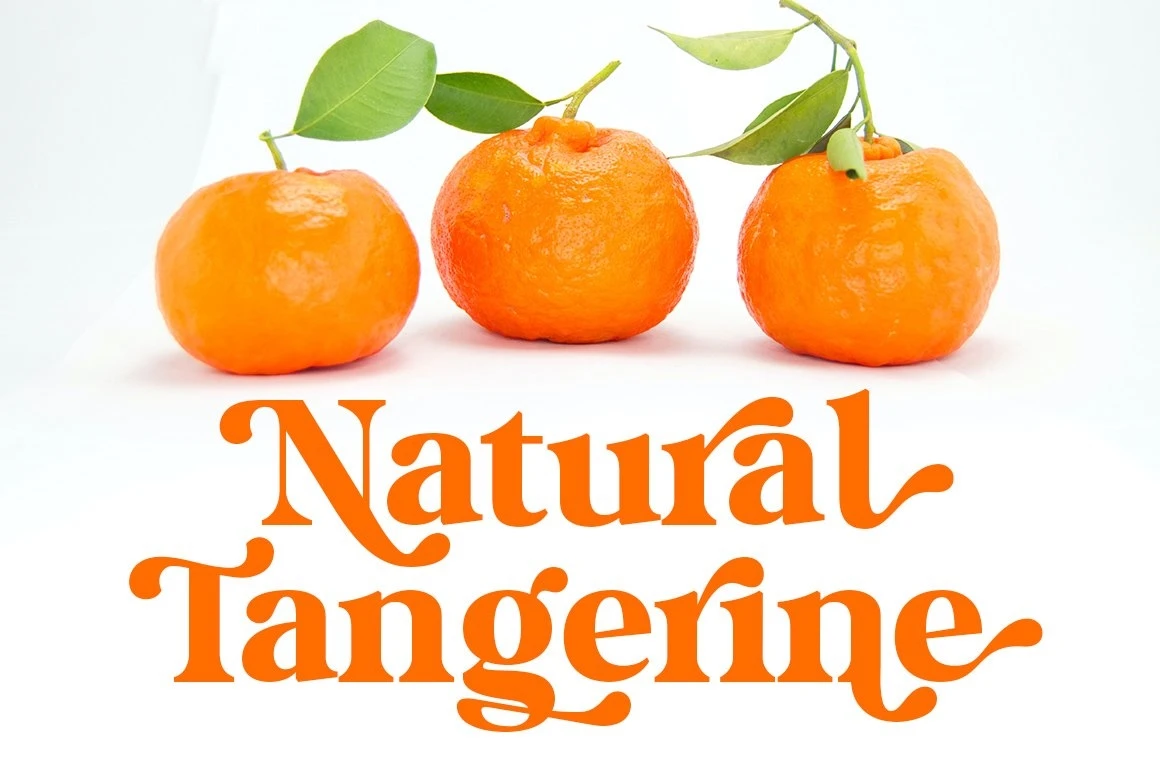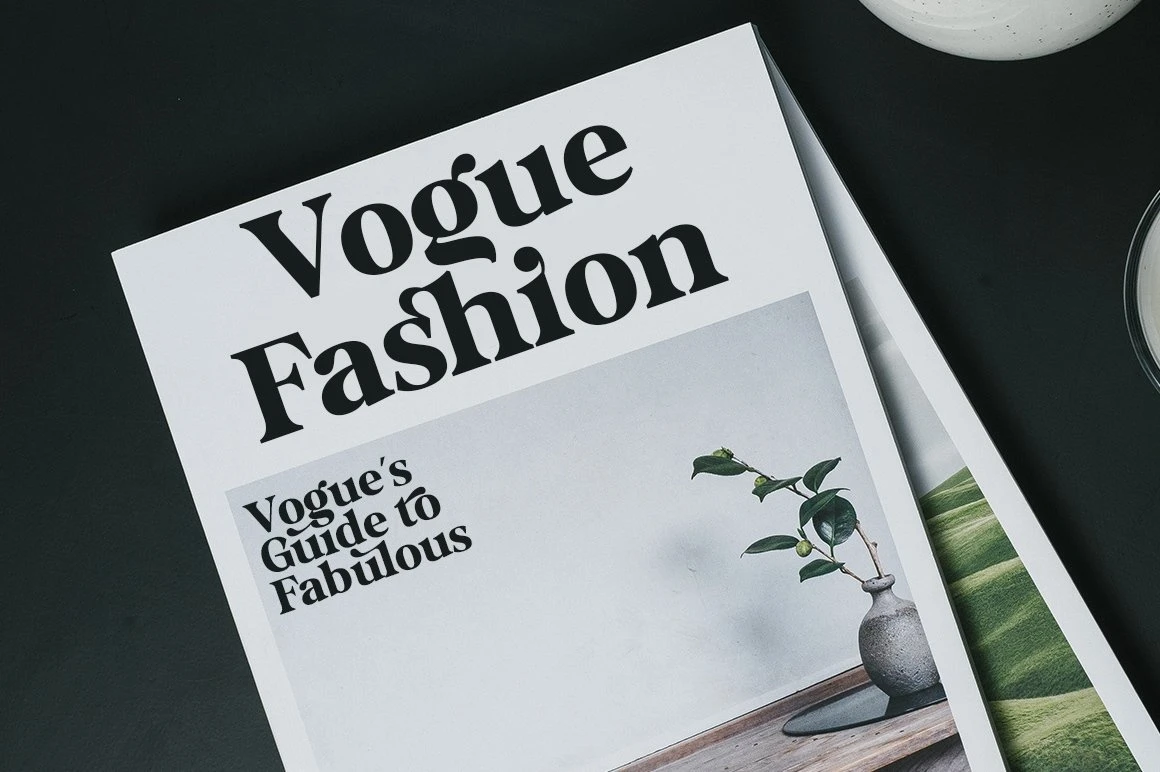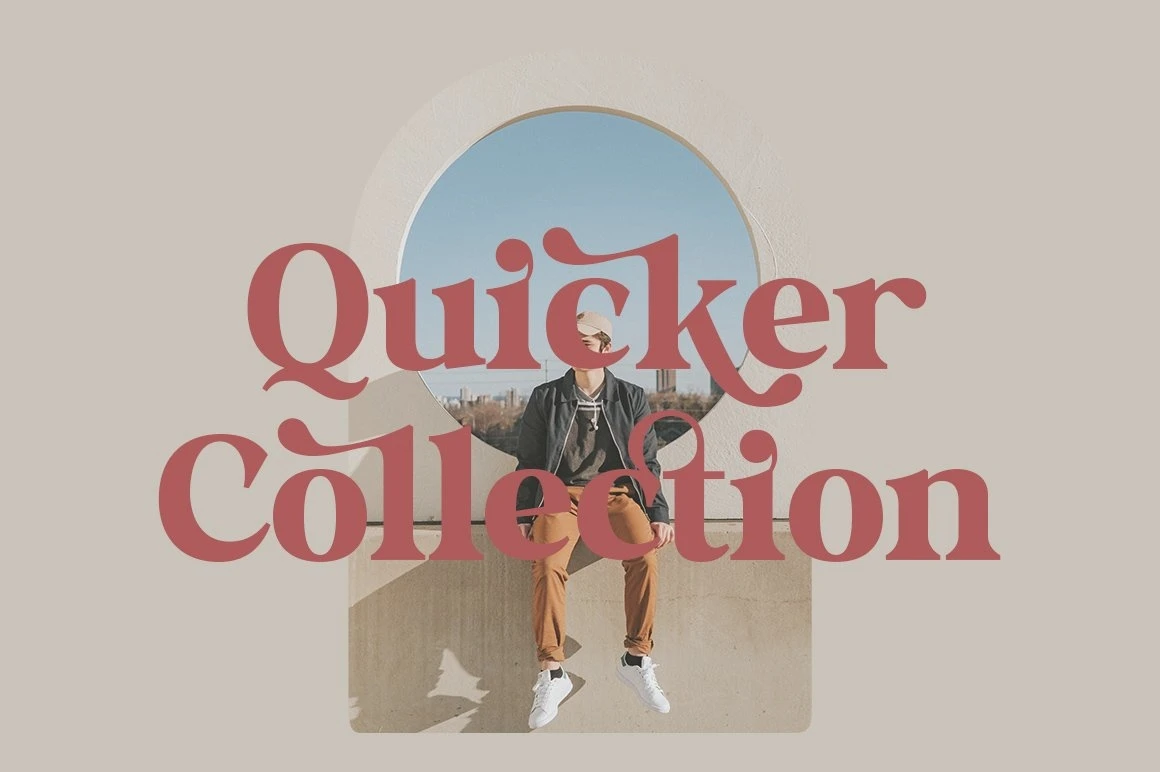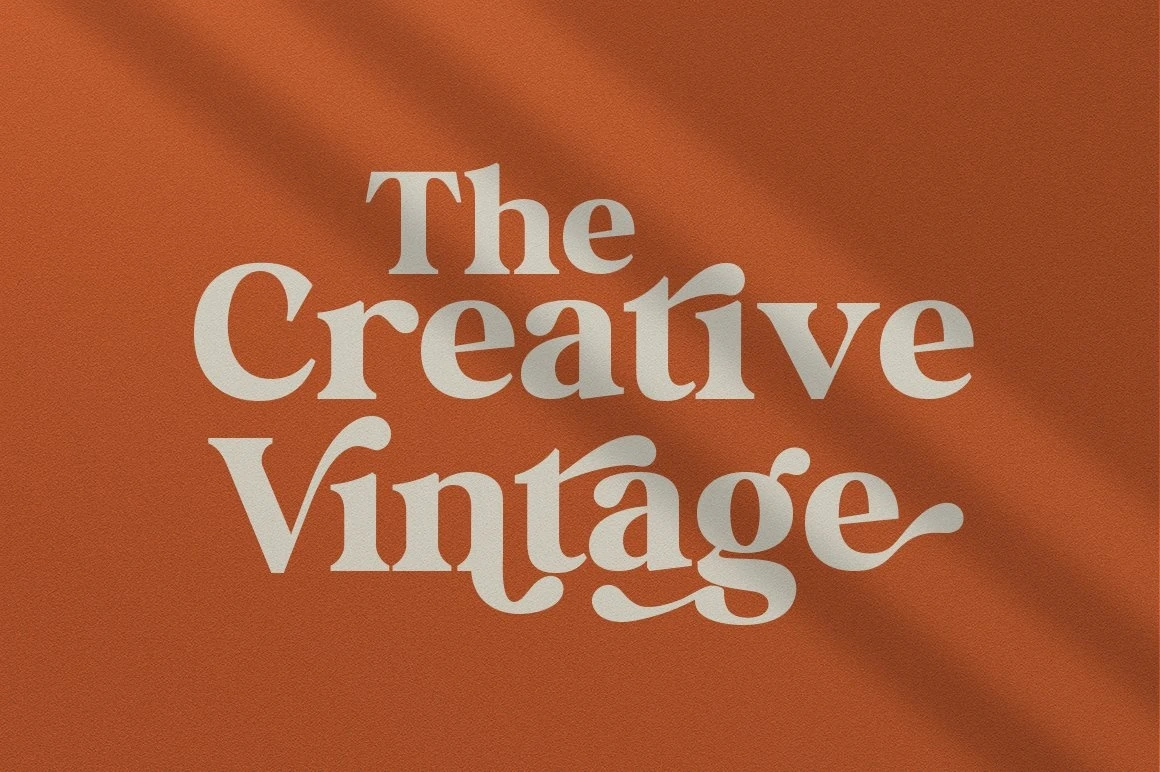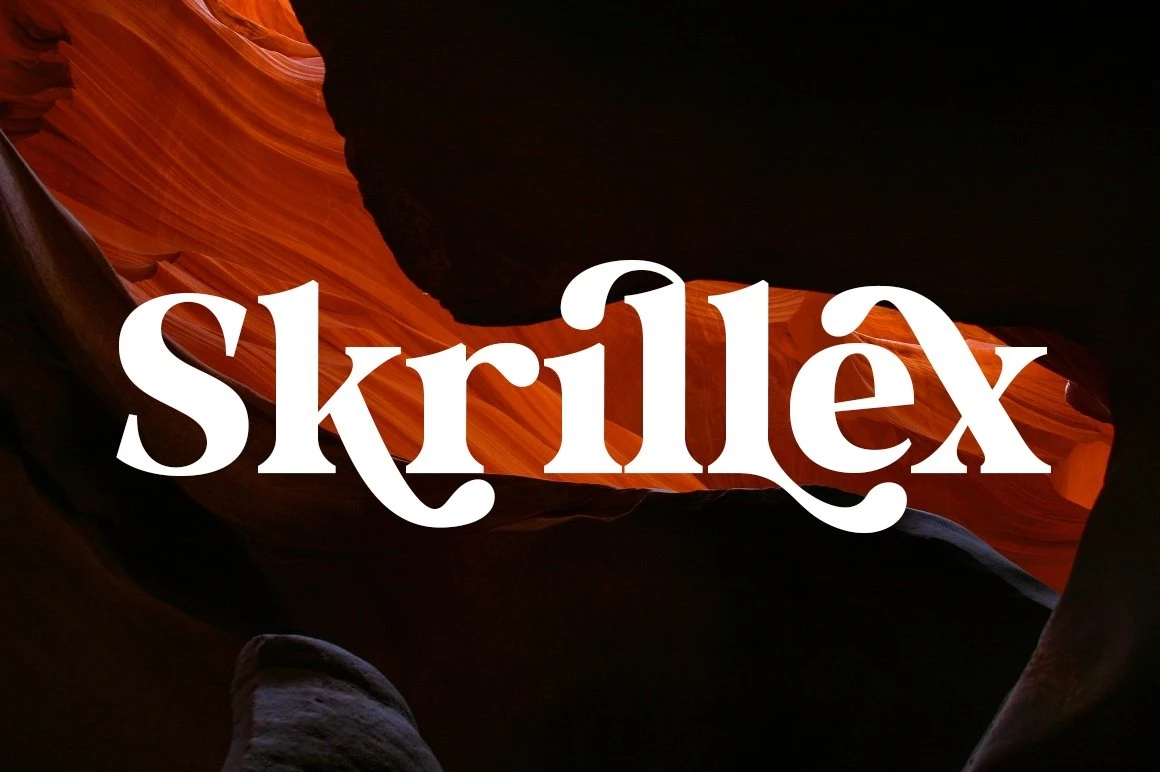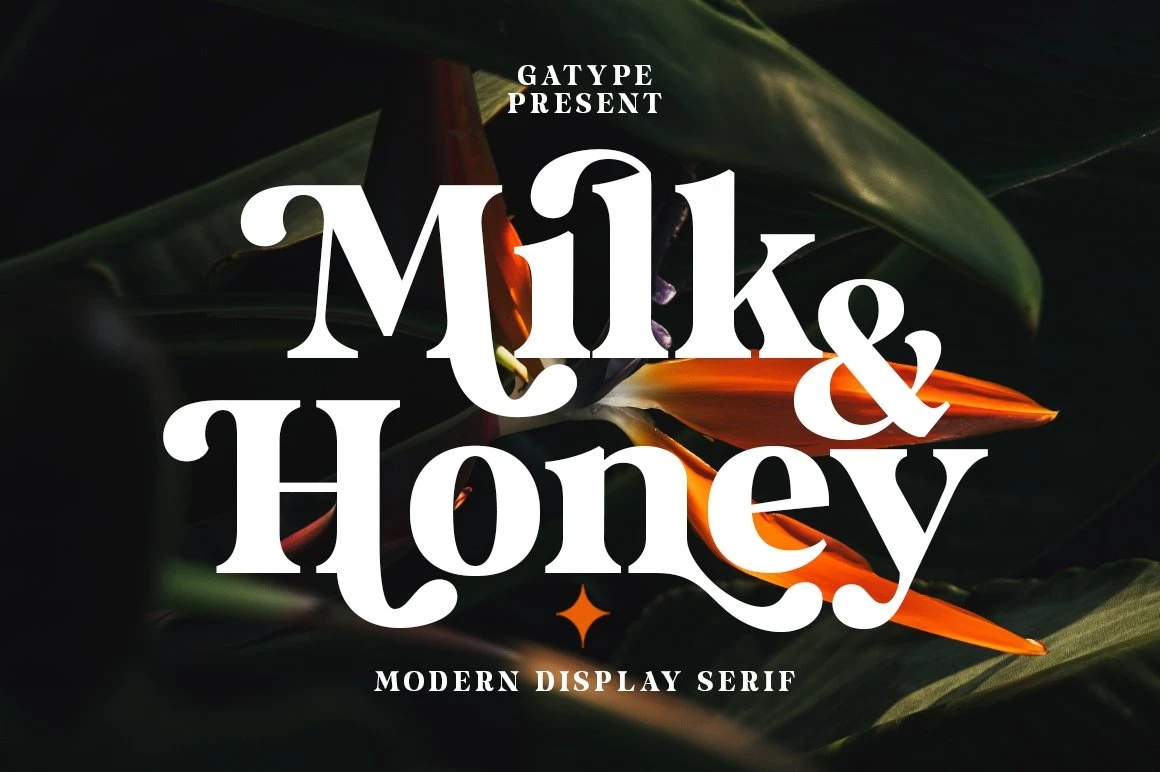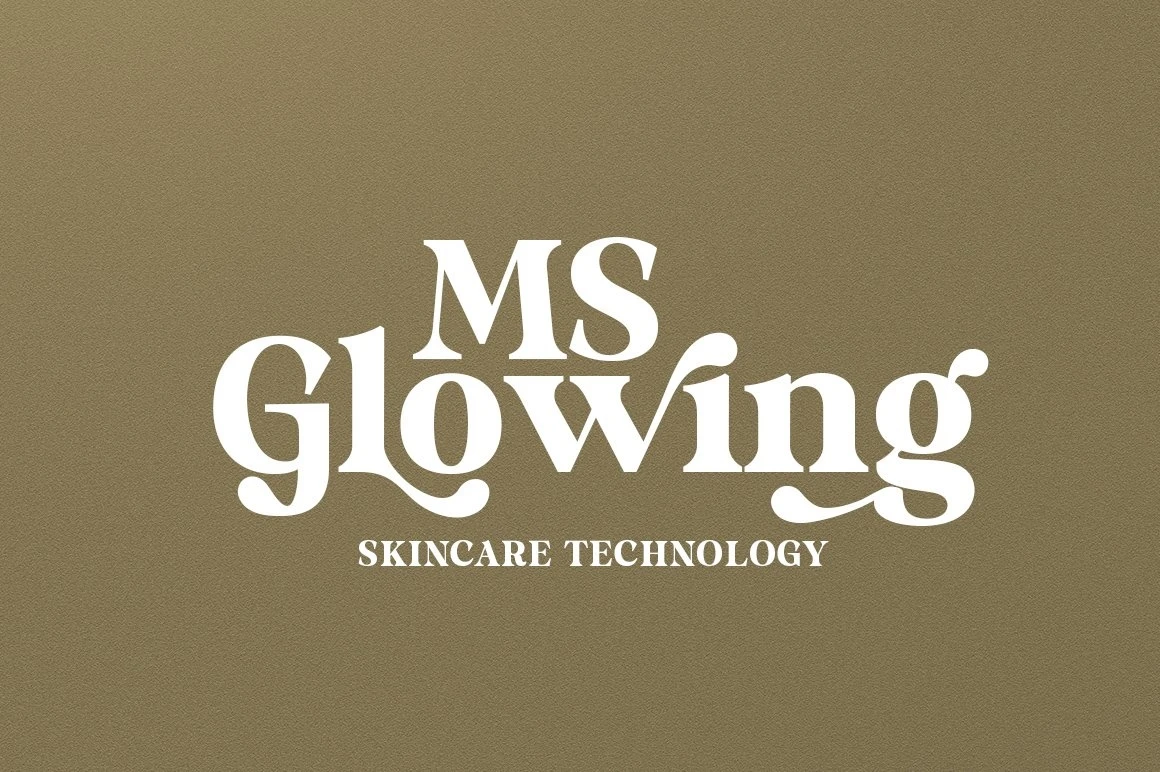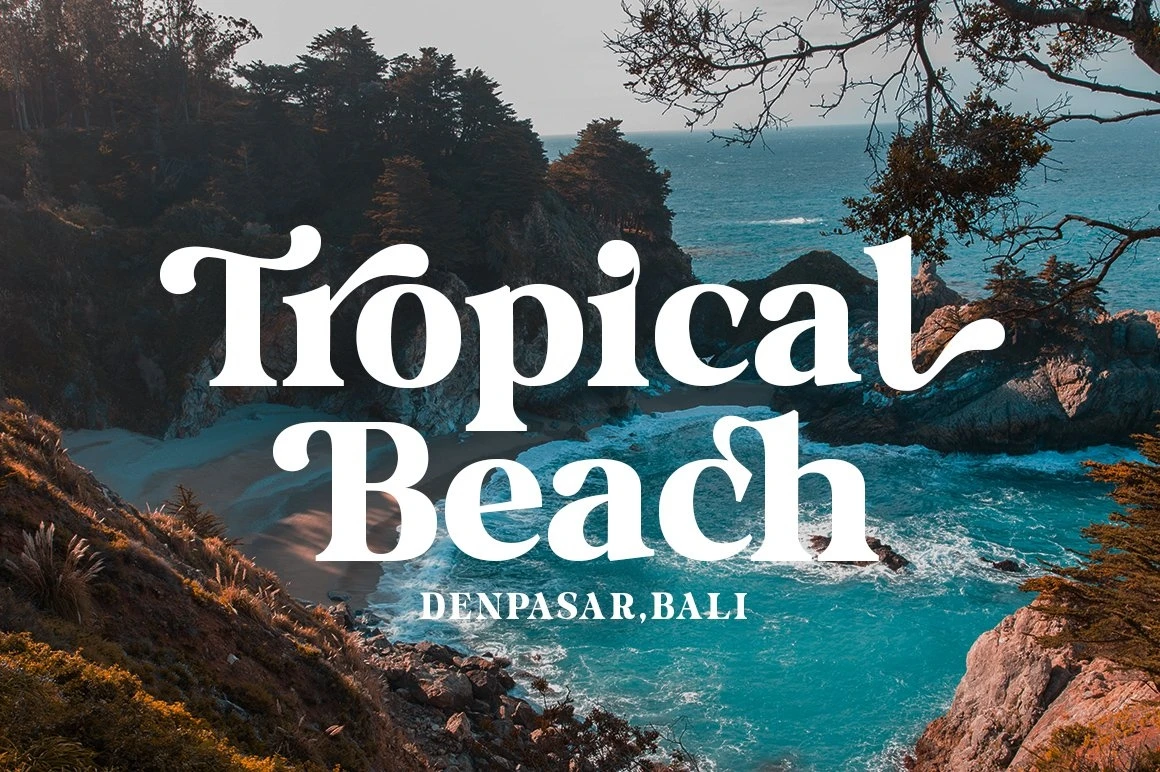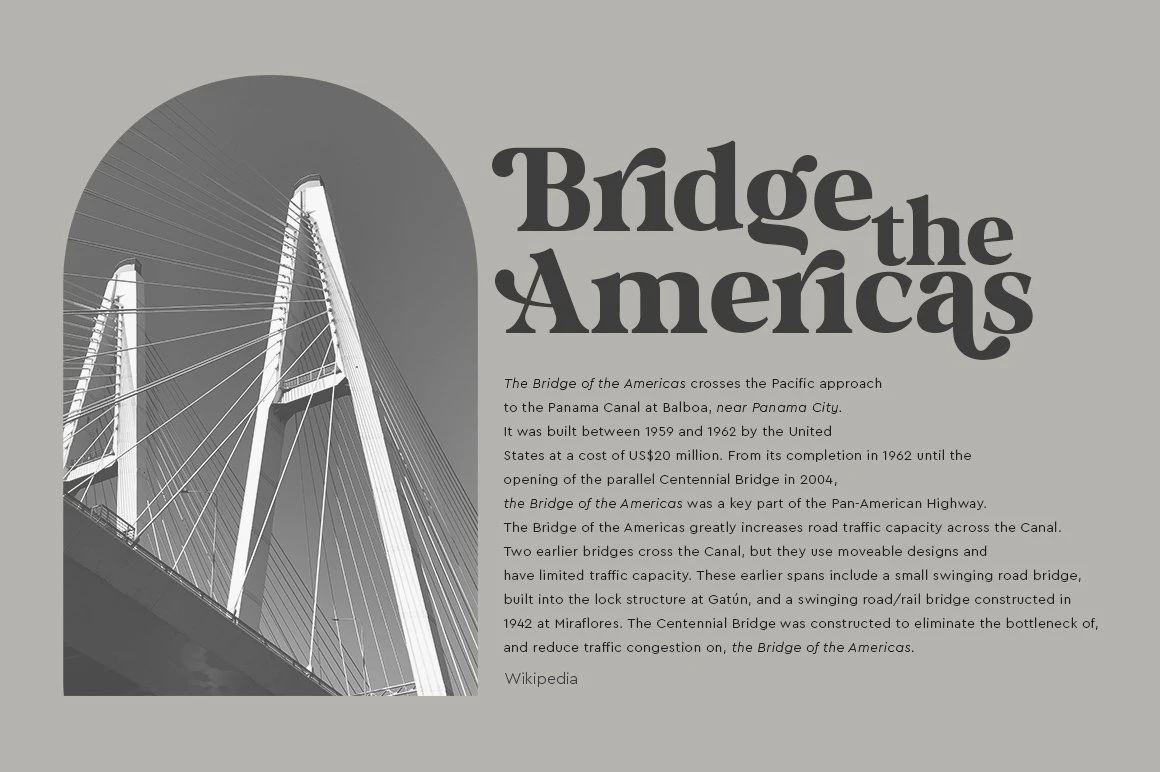
Milk And Honey is a modern vintage serif font packaged in a modern and classy style, complete with your OpenType feature access to access a large selection of alternative fonts and bindings, the choice of fonts you like from large and small font variations for a luxurious and elegant look. A unique, fun and versatile serif family with 20 ligatures and 97 alternatives to enhance any design you love. This font is perfect for branding projects, Logo design, Apparel Branding, packaging, magazine titles, advertisements, T-shirts, postcards and more. This typeface has been enriched with additional alternate characters of up to 329 glyphs. Hope it helps to capture the soul of any design. Finally, there are no words that can be said other than "Success and enjoy.